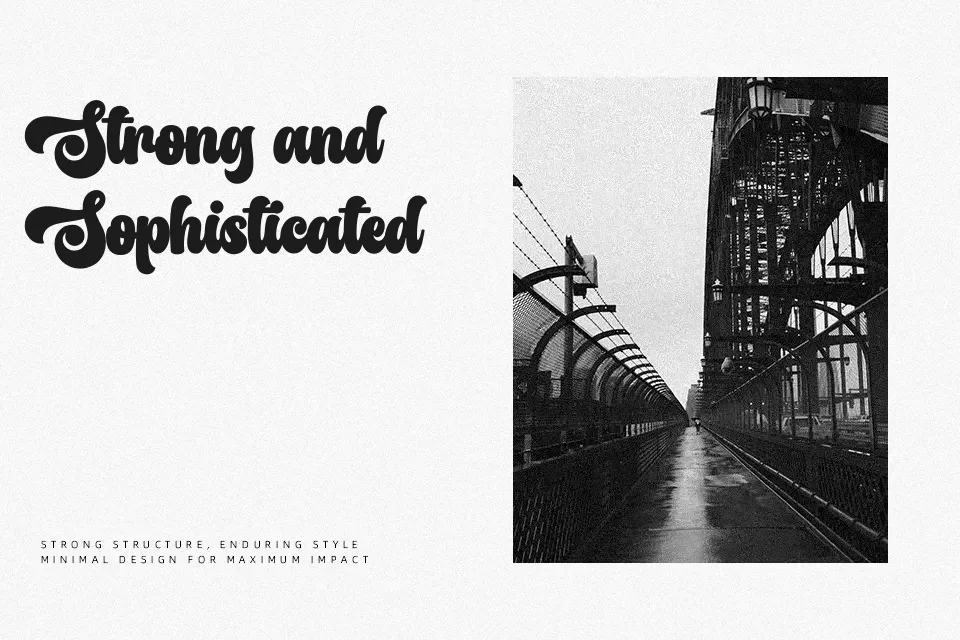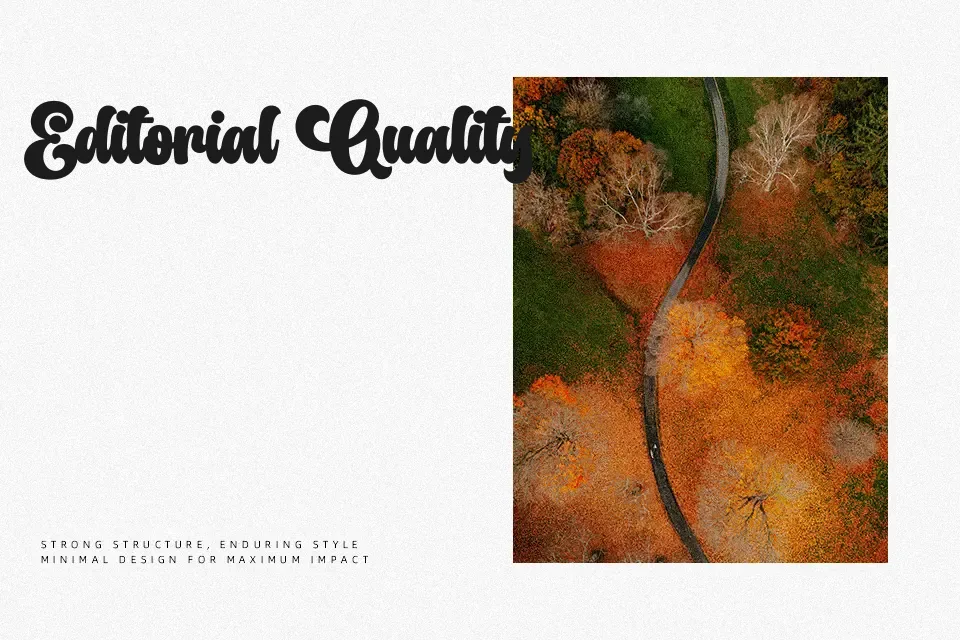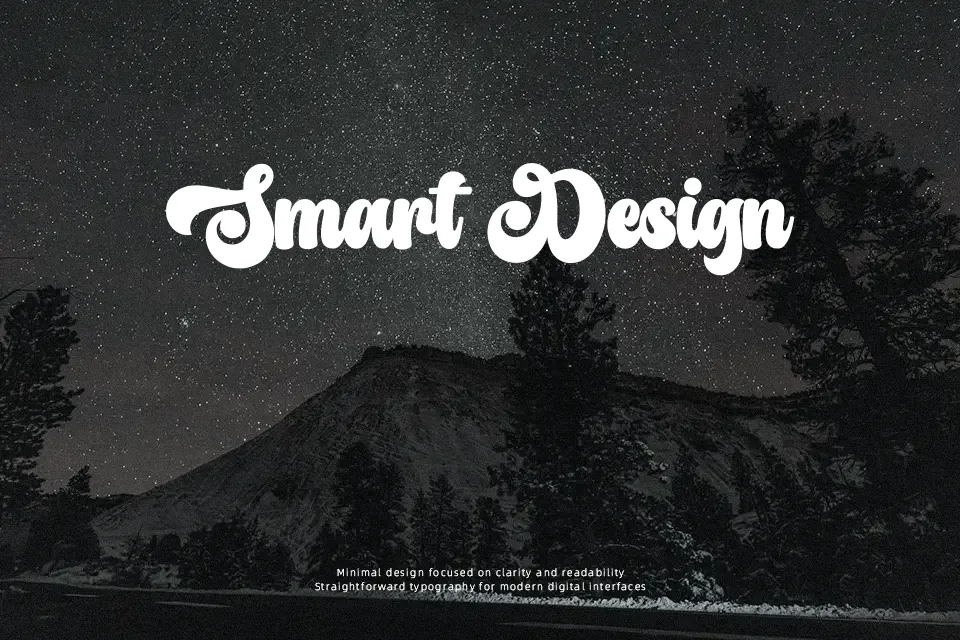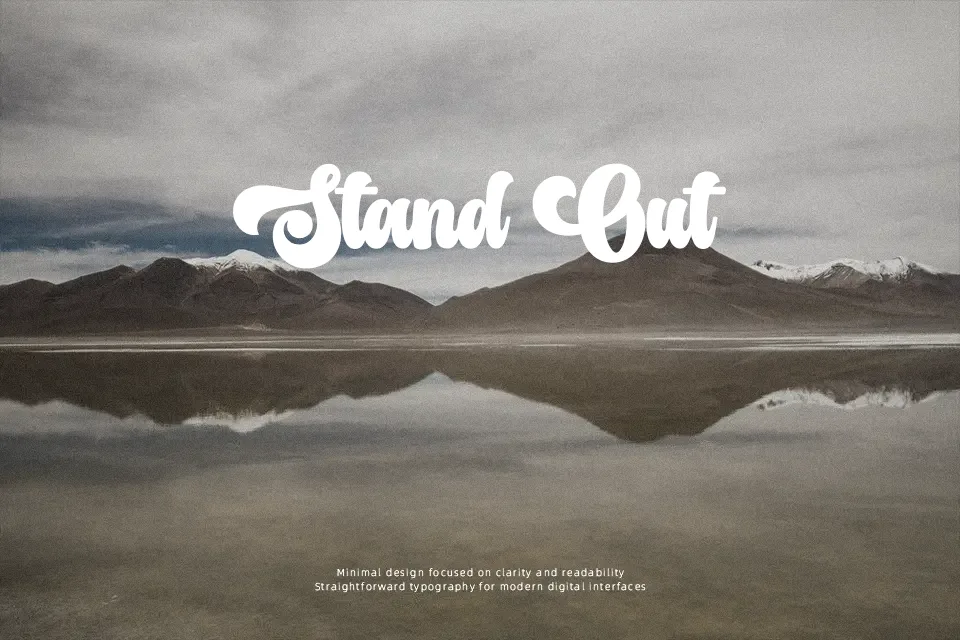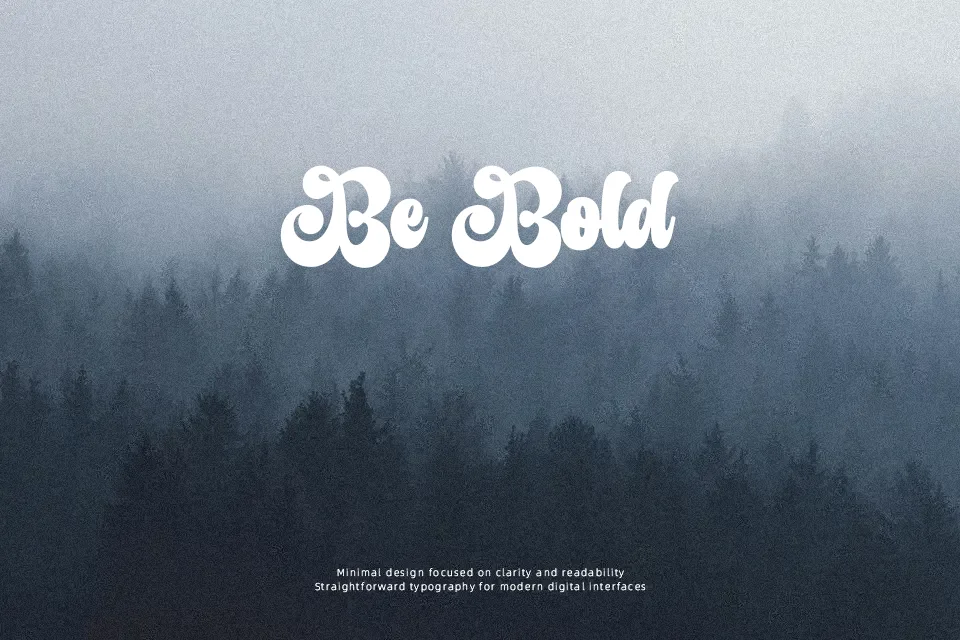
The Augusta Font
The Augusta Font establishes a commanding presence through extra-bold strokes, soft teardrop terminals, and tight character spacing reminiscent of seventies lettering. Moderate contrast between rounded stems and fluid curves gives each glyph a buoyant, rhythmic quality in large headline settings. The letterforms retain punchy legibility across short phrases, though the sheer stroke weight and compact tracking quickly compromise readability in multi-line body text. Due to heavy ink coverage, tiny captions easily fill in and lose structural clarity. Overall, this typeface offers outstanding personality for prominent display graphics where nostalgic visual weight takes priority.
retro apparel graphics
craft beverage packaging
vintage badge logos
continuous paragraph reading
small interface captions
legal document layouts
dense spreadsheet data